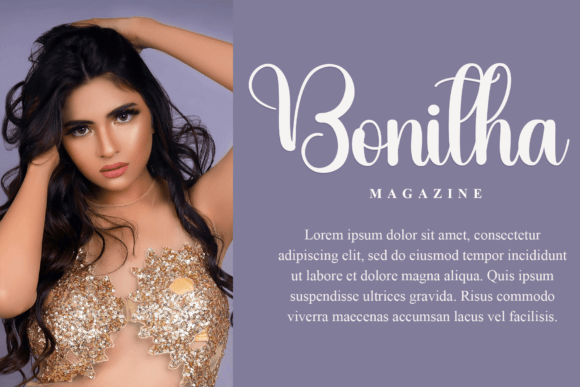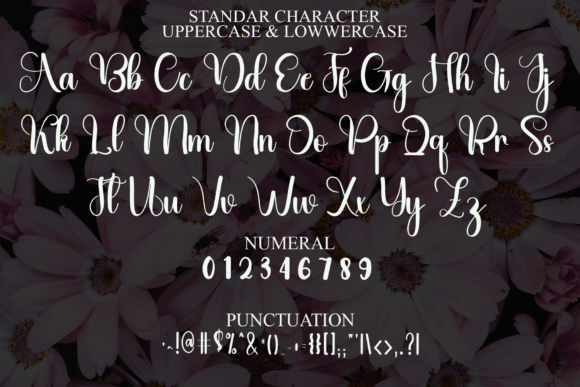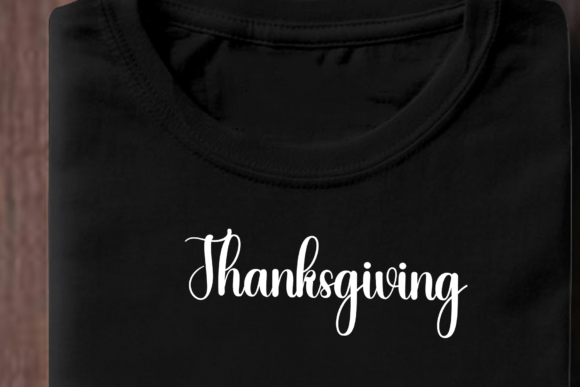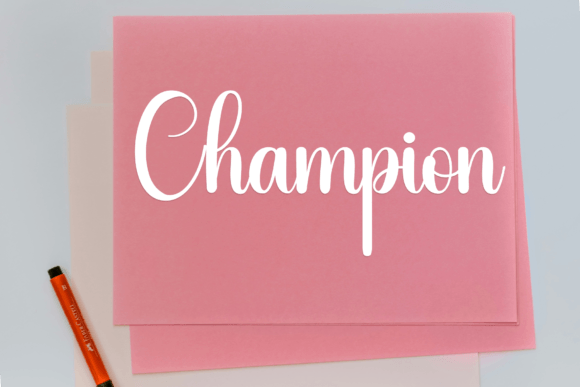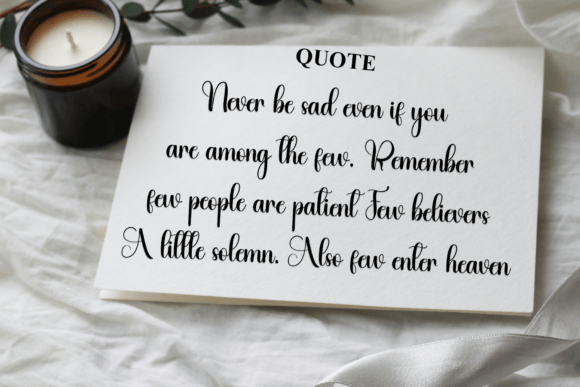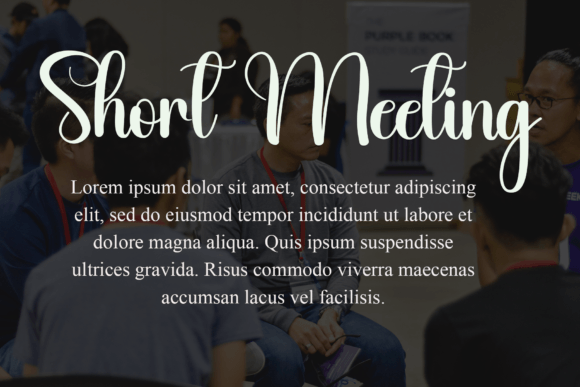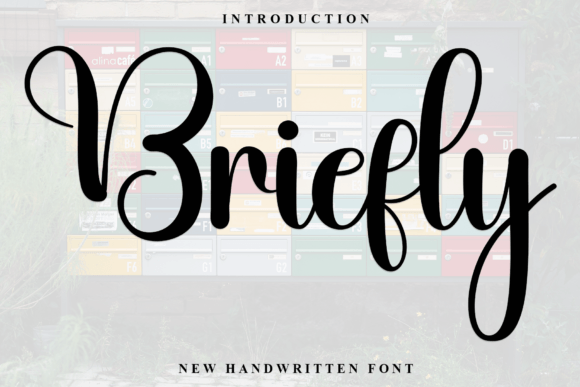
I still remember the frustration of working on a client’s wedding invitation project, searching for the perfect font to match their elegant and modern style. Hours spent scrolling through font libraries, trying out different combinations, and still, nothing seemed quite right. That’s when I stumbled upon Briefly Font, a beautiful and refined handwritten font that changed the game. In this article, I’ll share my experience with Briefly Font, its features, and how to make the most of it in your designs.
A First Impression: What I Love About Briefly Font
Briefly Font is a stunning addition to any design project, offering a classy, elegant, and modern look that’s perfect for logos, branding, invitations, stationery, wedding designs, social media posts, and more! Here are some of the things I love about it:
- ✨ Beautifully crafted handwritten letters with a refined touch
- ✅ Highly versatile and adaptable to various design styles
- ✨ Perfect for creating a sophisticated and professional look
The Honest Review: A Few Quirks to Consider
While Briefly Font is an excellent choice for many design projects, there are a few quirks to keep in mind:
- ⚠️ Some users may find the font a bit too refined or elegant for certain projects, such as more playful or casual designs.
- 🤔 The font may not be the best choice for very long blocks of text, as it can be quite ornate and attention-grabbing.
The Designer Inspiration Behind Briefly Font
Briefly Font was designed with the intention of creating a beautiful and refined handwritten font that’s perfect for a variety of design projects. The designer aimed to create a font that’s both elegant and modern, making it suitable for formal and creative designs. According to the designer’s vision, Briefly Font is meant to evoke a sense of sophistication and professionalism, while still being approachable and friendly.
The designer’s inspiration for Briefly Font came from a combination of traditional calligraphy and modern digital design. They wanted to create a font that would be versatile and adaptable to different design styles, while still maintaining a unique and distinctive look. Through Briefly Font, the designer aimed to provide a valuable resource for designers and crafters looking for a high-quality, elegant font.
Here are some frequently asked questions about Briefly Font:
- Q: What is Briefly Font?
- A: Briefly Font is a beautiful and refined handwritten font designed for a variety of design projects.
- Q: Can I use Briefly Font in my craft projects?
- A: Absolutely! Briefly Font is perfect for craft projects, such as card making, scrapbooking, and other paper crafts.